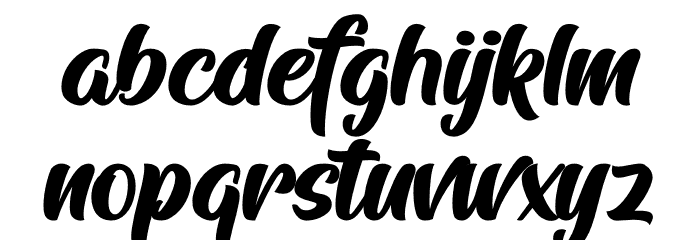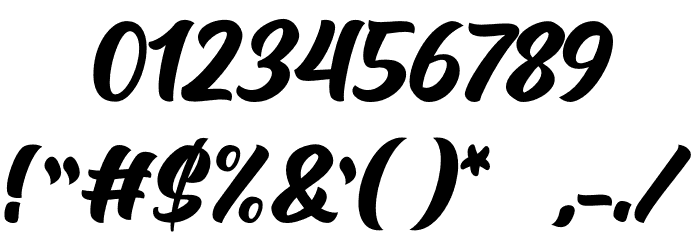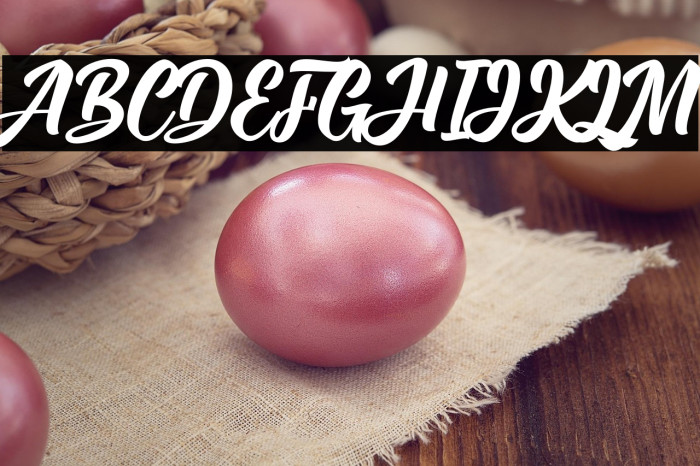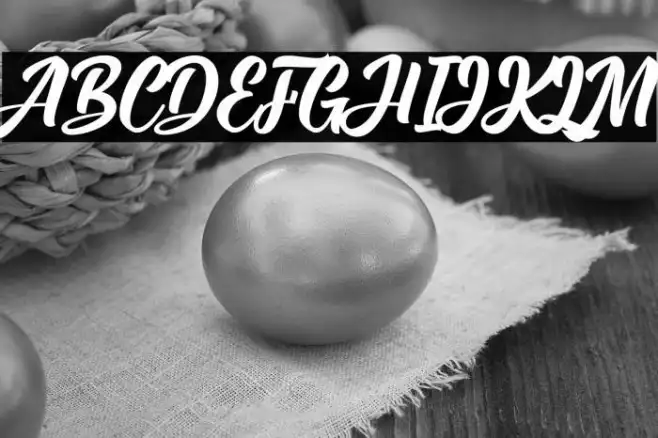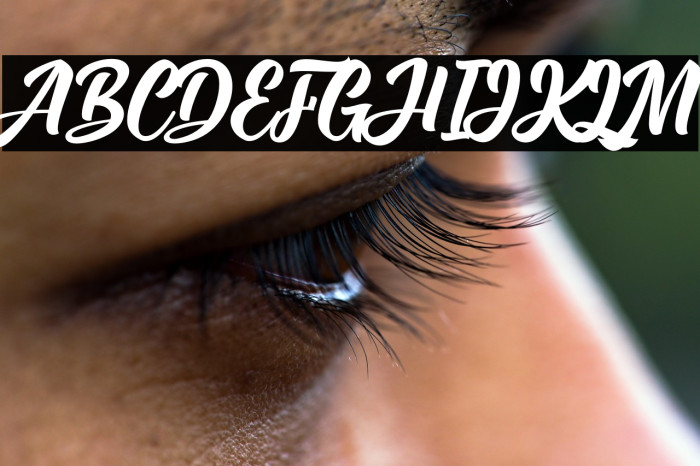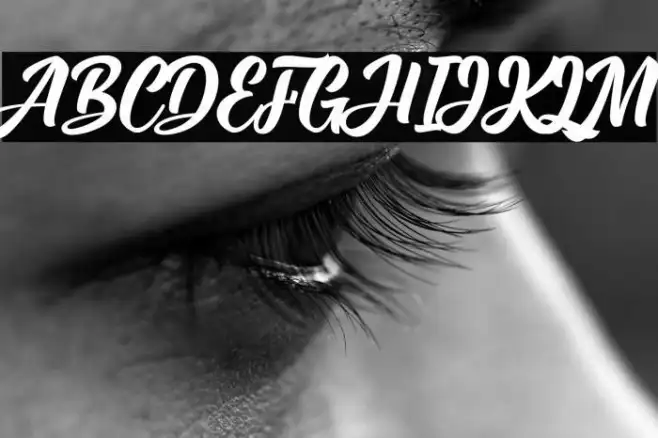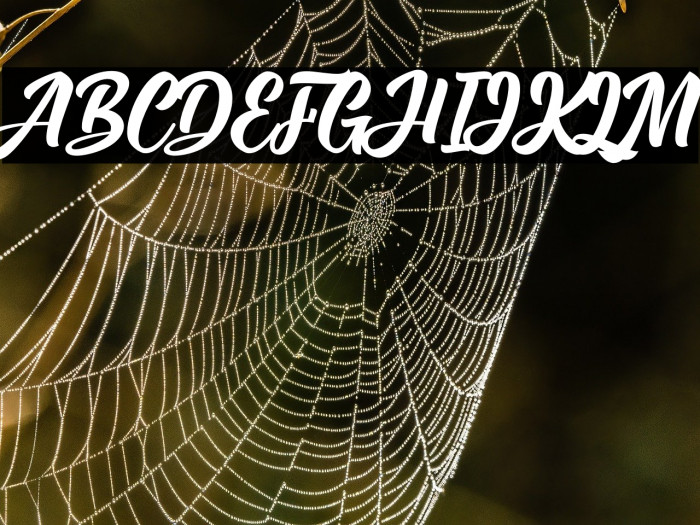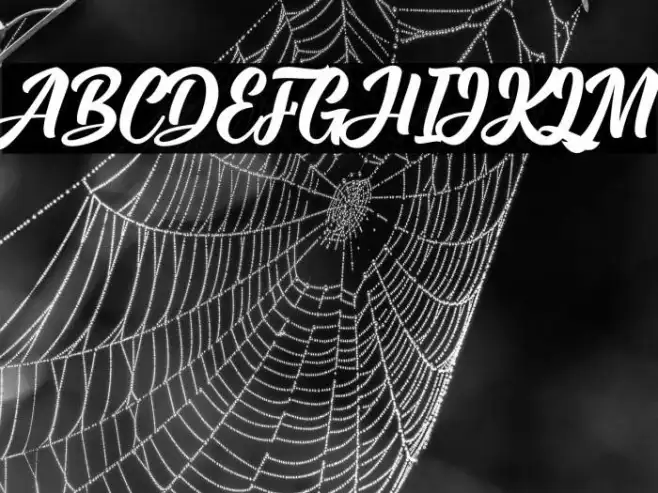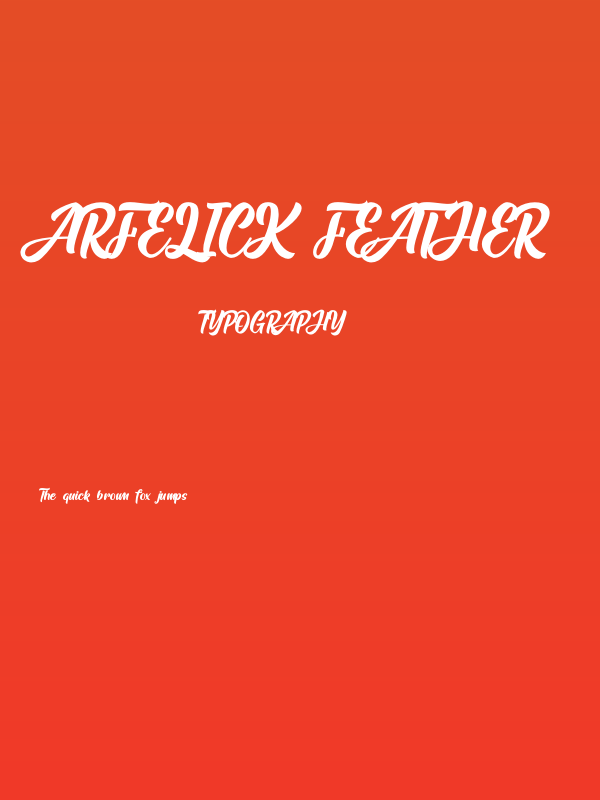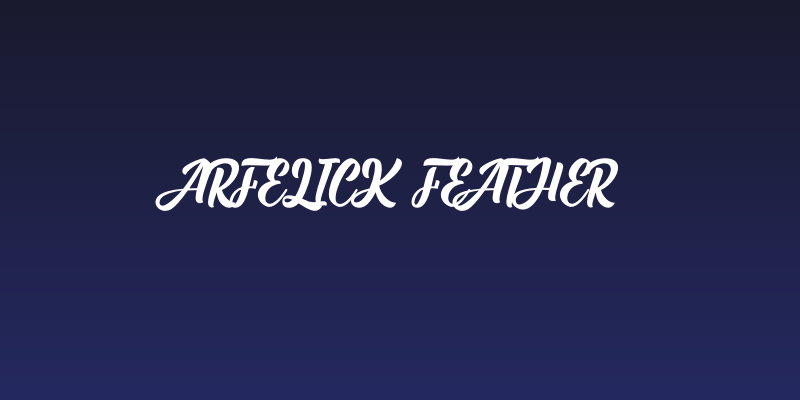
Arfelick Feather Font
This font exhibits a bold, flowing script style with a dynamic and energetic appearance. The characters are interconnected, creating a sense of movement and fluidity. The uppercase letters are slightly larger and more ornate, while the lowercase letters maintain a consistent flow. Numbers and special characters are designed to match the overall aesthetic, ensuring a cohesive look. The strokes are thick, providing a strong visual impact, and the overall design is reminiscent of hand-lettered calligraphy, making it suitable for creative and expressive projects.
A bold, flowing script font with a dynamic, hand-lettered style.
- Font: Arfelick Feather
- Proposed Projects: Ideal for branding, invitations, posters, and any project requiring a personal, artistic touch.
- Category: Script
- Character Spacing: Tight
- Use Case: Logos, Headlines, Invitations